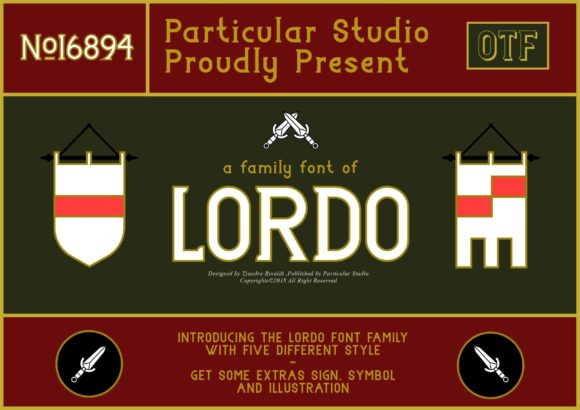
Journey back to the era of captivating medieval art with Lordo Family Font, a striking display font family crafted by TJX® Studio. This collection of 5 distinctive styles unlocks a world of creative possibilities, allowing you to craft designs that resonate with the beauty and intrigue of a bygone era.
Be mesmerized by the elegance of Lordo's Regular style, with its clean lines and timeless appeal. Its delicate curves and sharp edges evoke the intricate details of illuminated manuscripts, inviting you to create designs that whisper stories of old.
Embrace the boldness of Lordo's Bold style, a commanding presence that demands attention. Its robust strokes and unwavering stance mirror the strength and grandeur of medieval architecture, empowering your designs with an aura of authority and confidence.
Discover the charm of Lordo's Italic style, a graceful dance of characters that captures the fluidity of medieval calligraphy. Its sweeping strokes and gentle curves lend a touch of elegance and sophistication to your designs, evoking the beauty of stained-glass windows and the delicate artistry of tapestries.
Unleash the creativity of Lordo's Bold Italic style, a fusion of strength and grace that captivates the imagination. Its confident strokes and dynamic angles recall the intricate patterns found in medieval mosaics, inspiring designs that radiate energy and vibrancy.
Delve into the mystery of Lordo's Black style, a deep and enigmatic font that exudes an air of sophistication and intrigue. Its rich, dark strokes evoke the allure of medieval manuscripts, inviting you to create designs that whisper secrets and ignite the imagination.